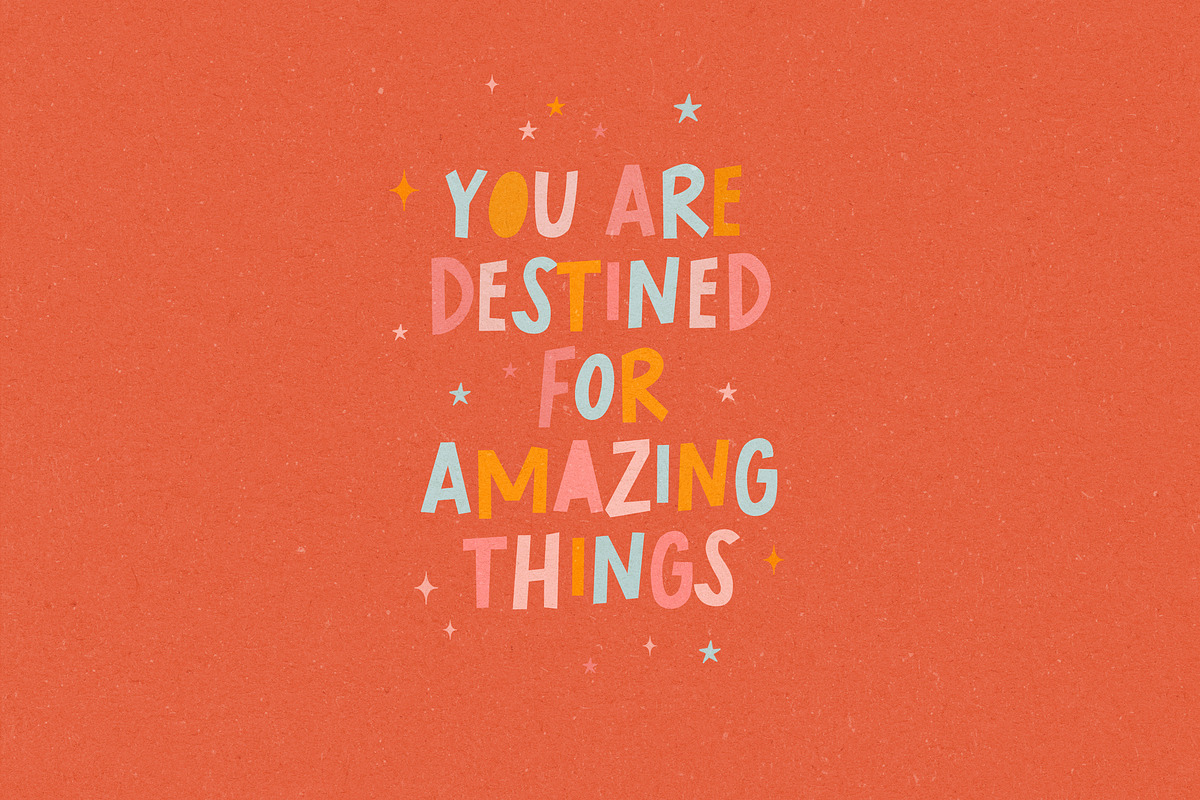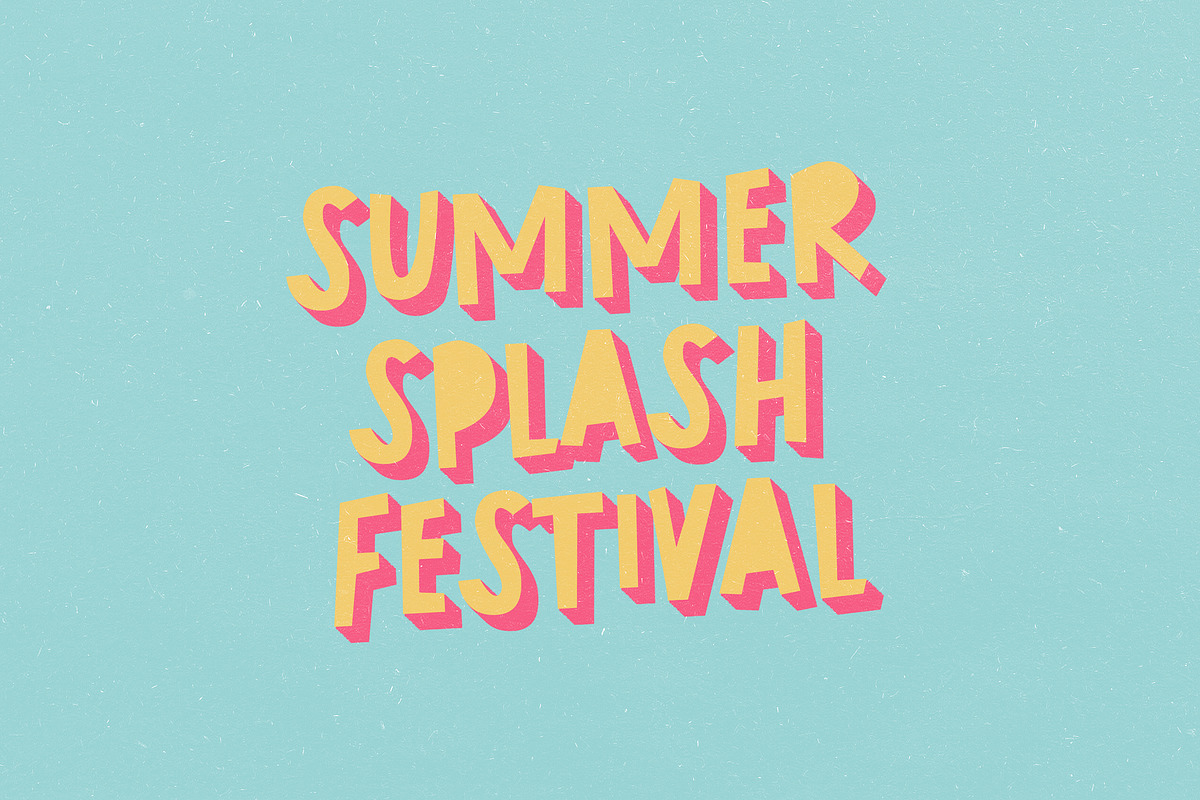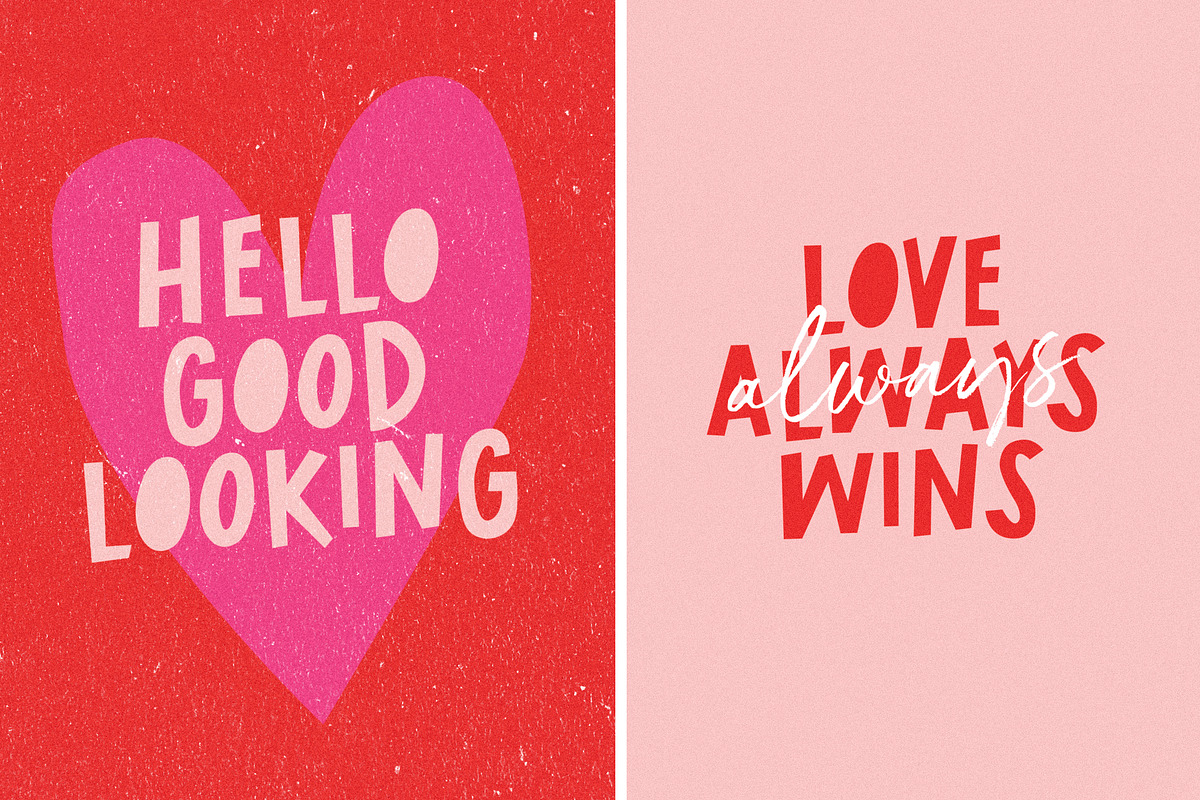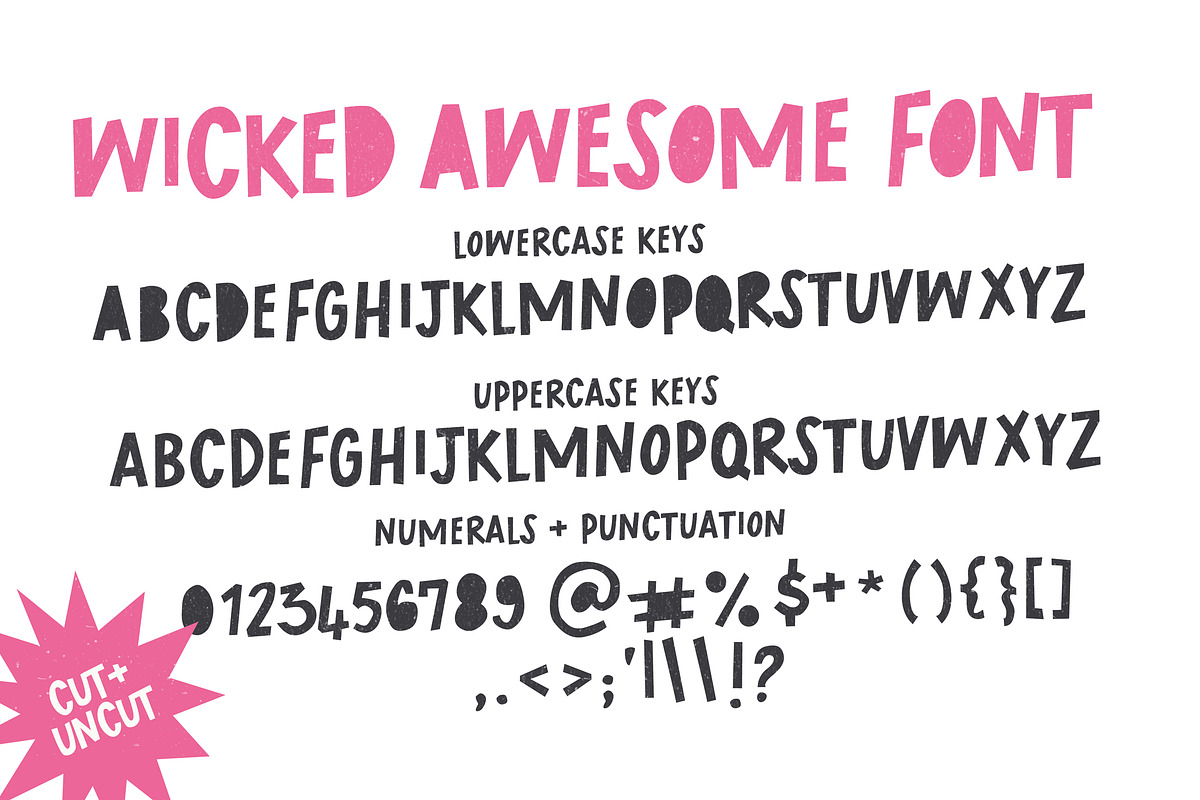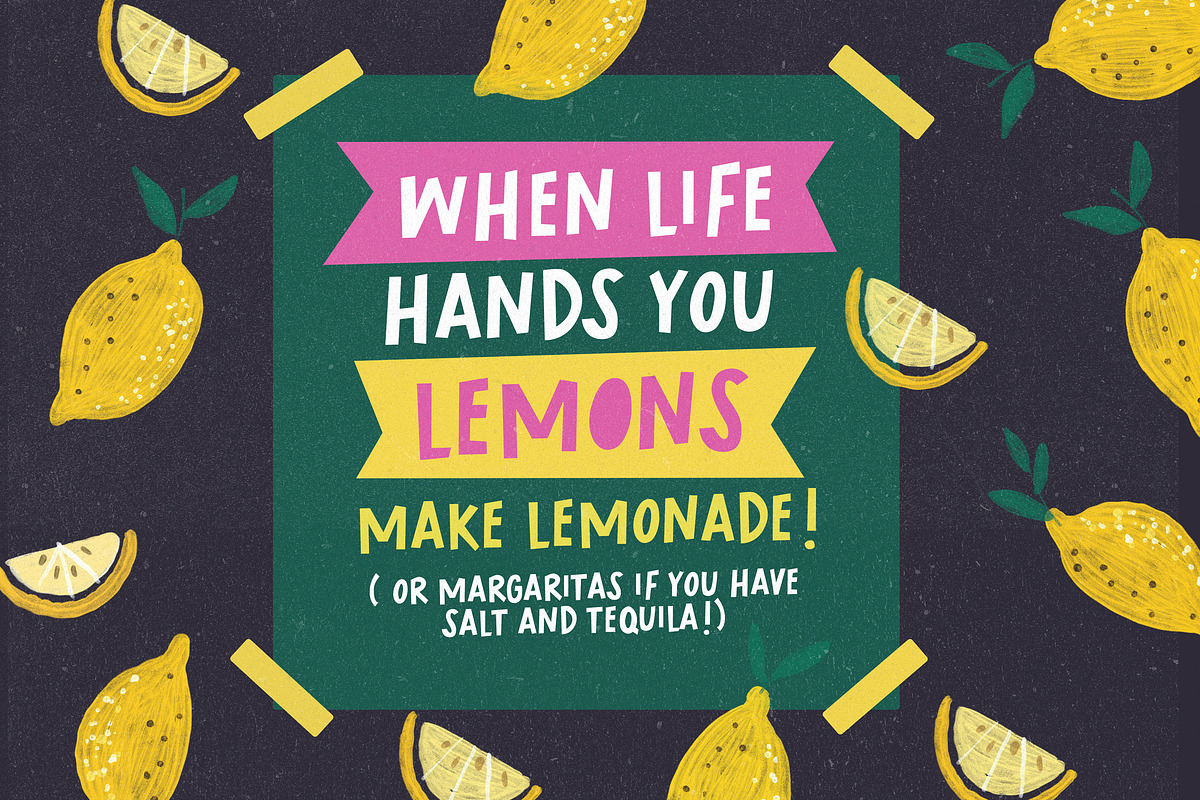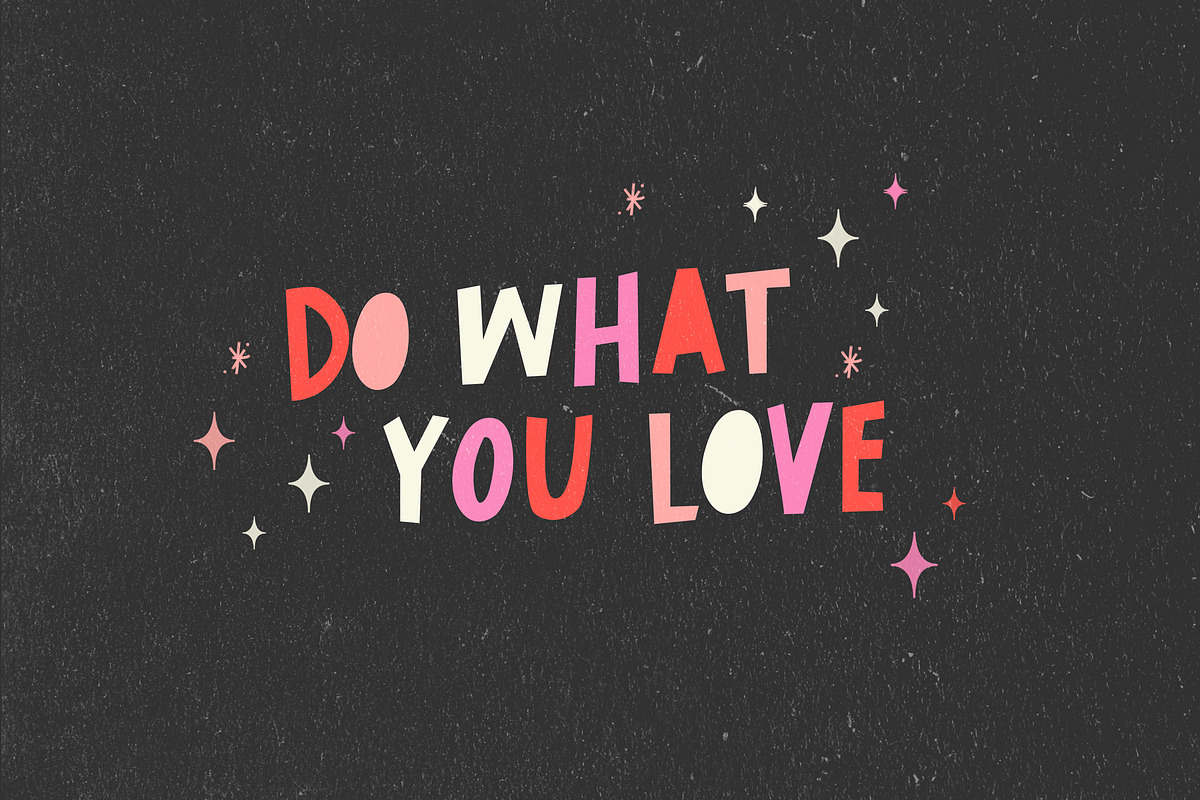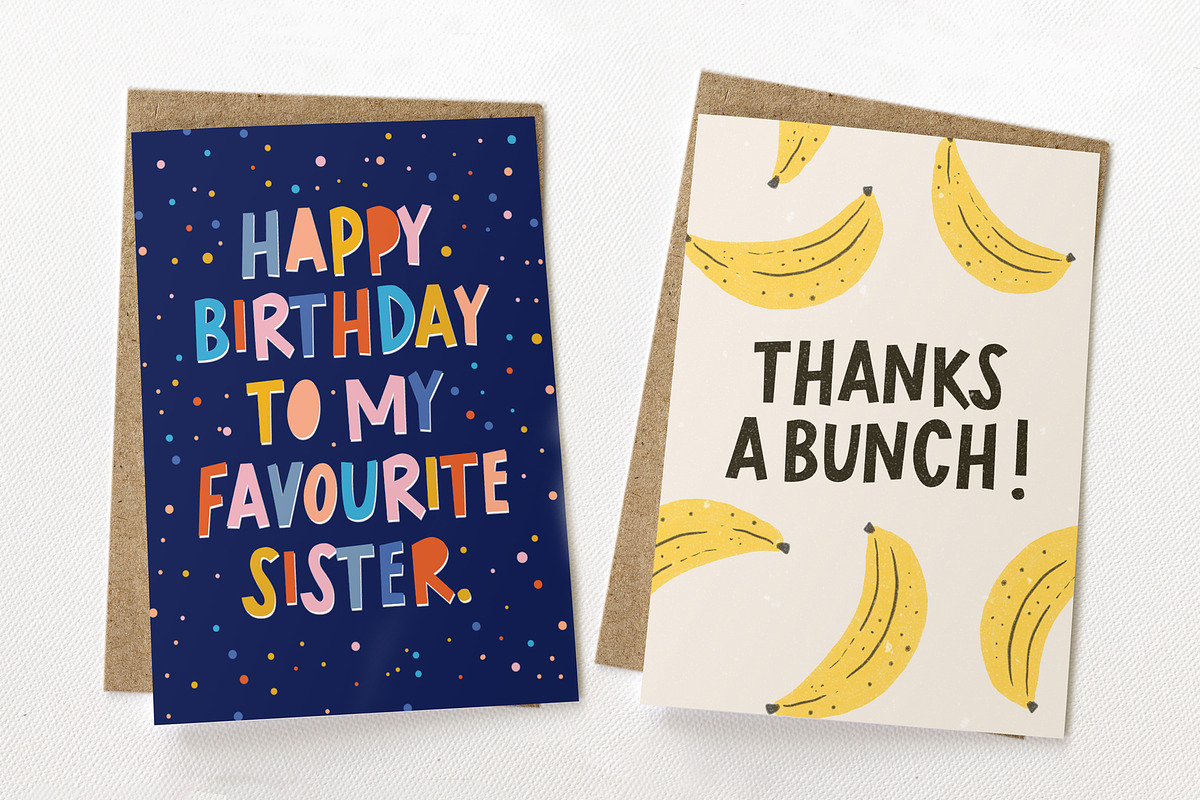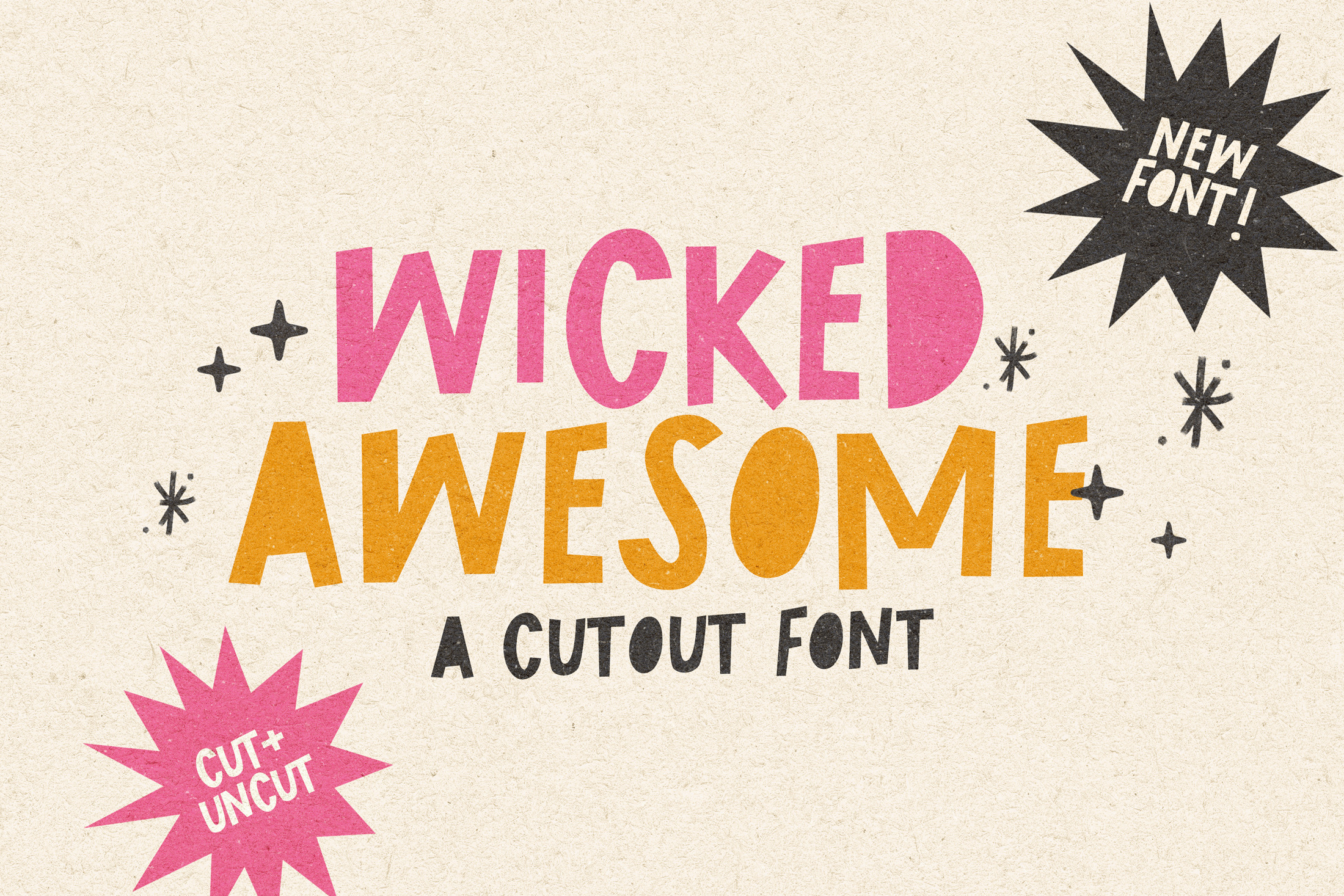
Wicked Awesome Cutout font
Say hello to Wicked Awesome! A playful all caps cutout-style font. Lowercase letters have filled letters (A,O,B etc) and the Uppercase keys have the regular unfilled letters. Pick and choose which letters you want filled to get the look you are after :)
Great for greeting cards, quotes, social media posts, posters, playful branding, and so much more!